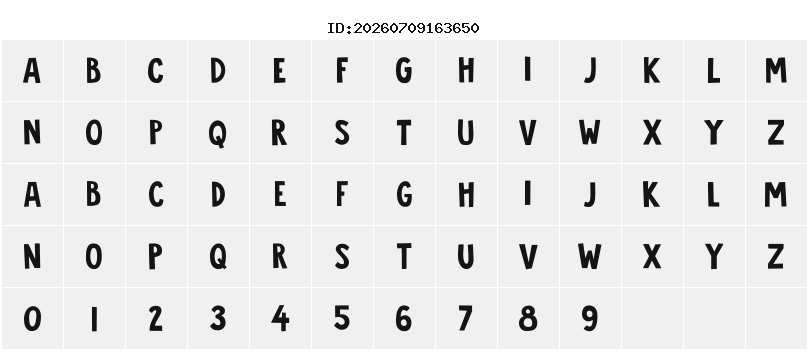
DK Jalebi Preview
• Font Name: DK Jalebi
• Designer: David Kerkhoff
About DK Jalebi.otf
DK Jalebi.otf is a modern, elegant sans-serif font designed for ultimate readability and visual harmony. Perfect for branding, headlines, web design, and print materials.